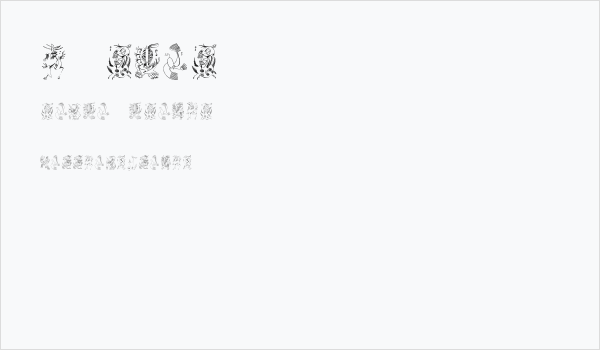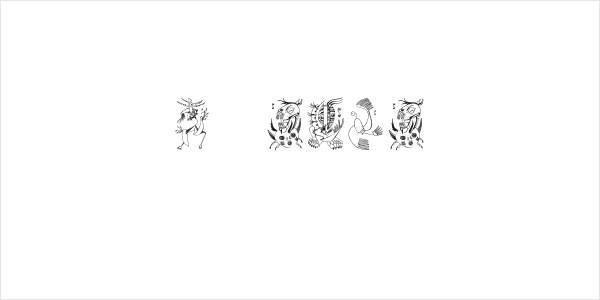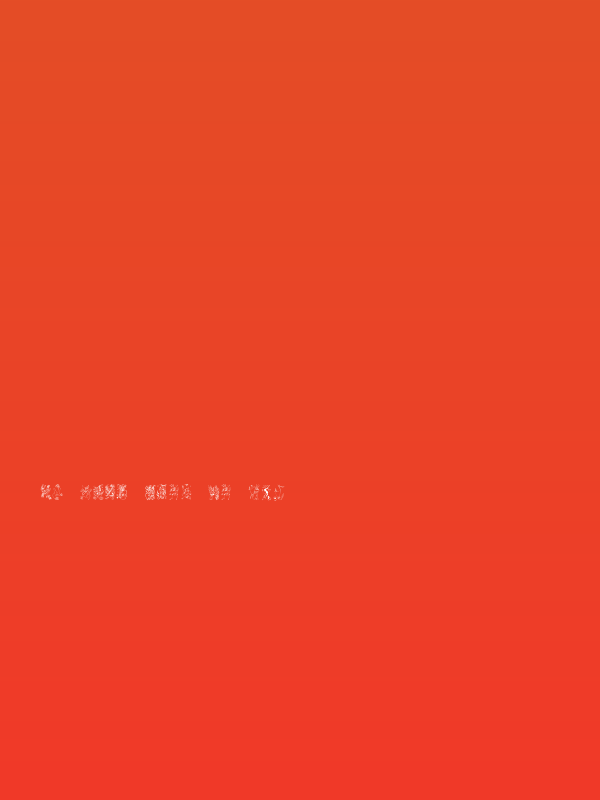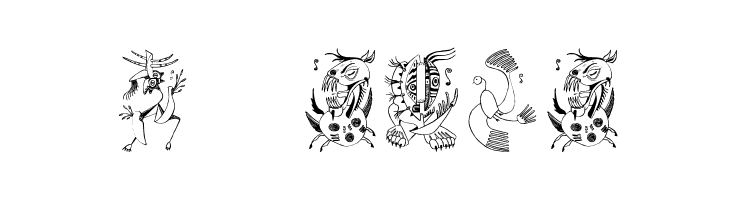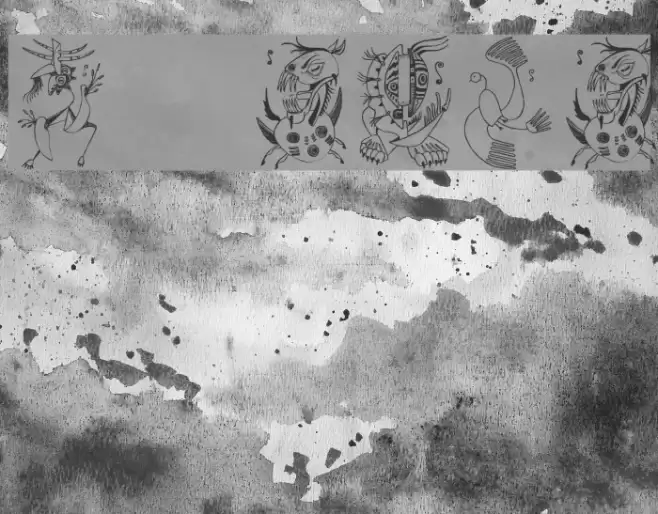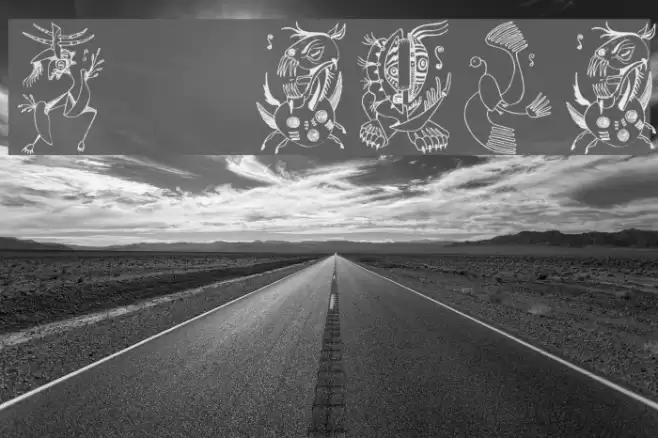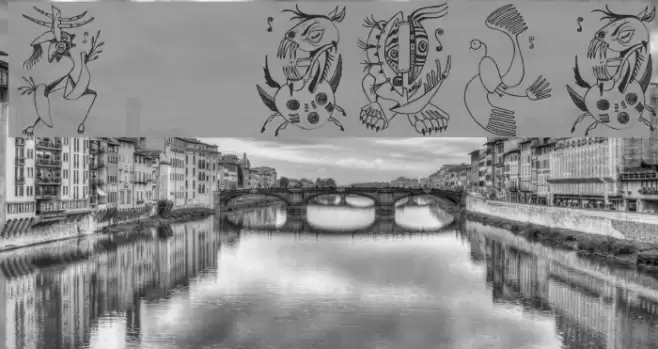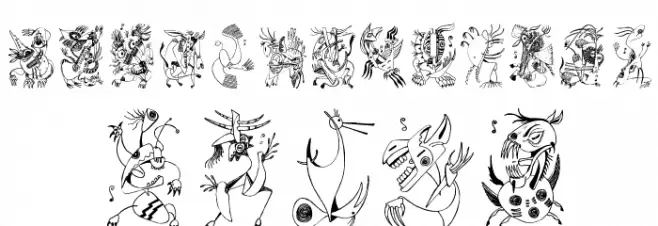
Z-Most Critter Font
✎ Dingbats
| 用途 | Logos, Artistic projects, Illustrations |
| おすすめプロジェクト | Ideal for creative projects such as children's book illustrations, whimsical posters, unique branding, or any design requiring a playful and artistic touch. |